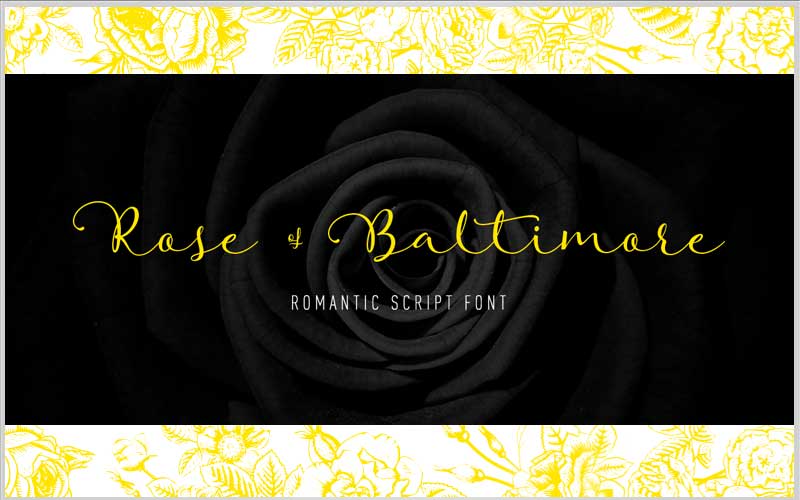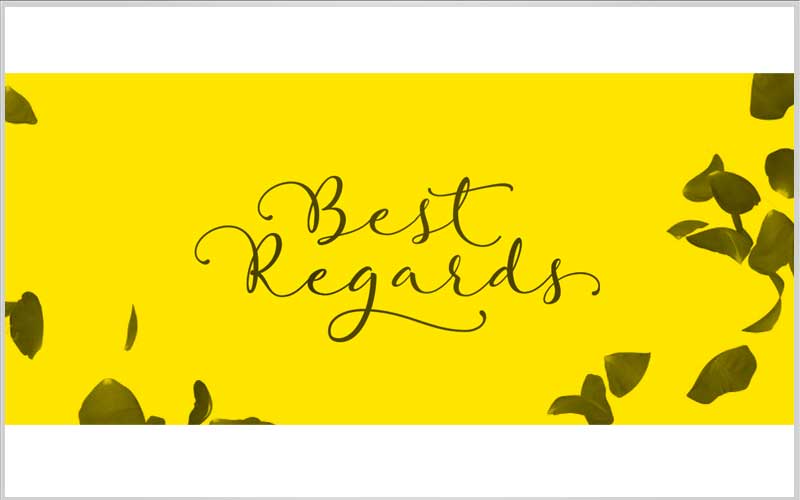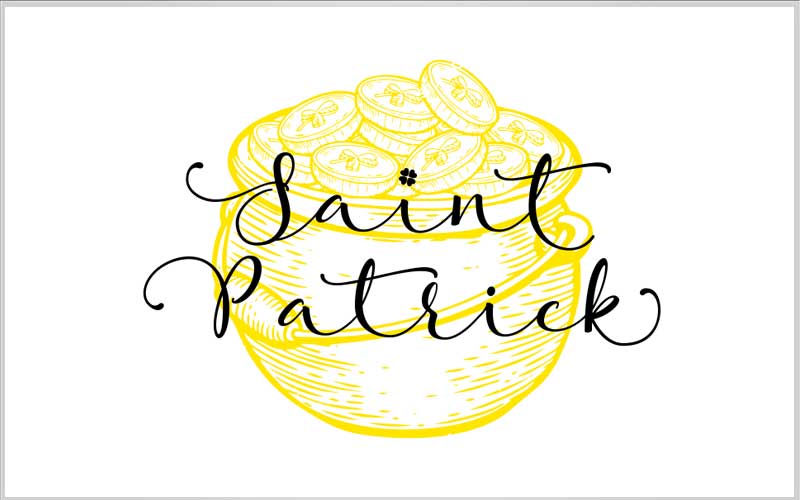
Rose of Baltimore is a romantic script font. For lovers ! The full commercial version comes with a huge collection of 100 alternate glyphes and contextual ligatures.